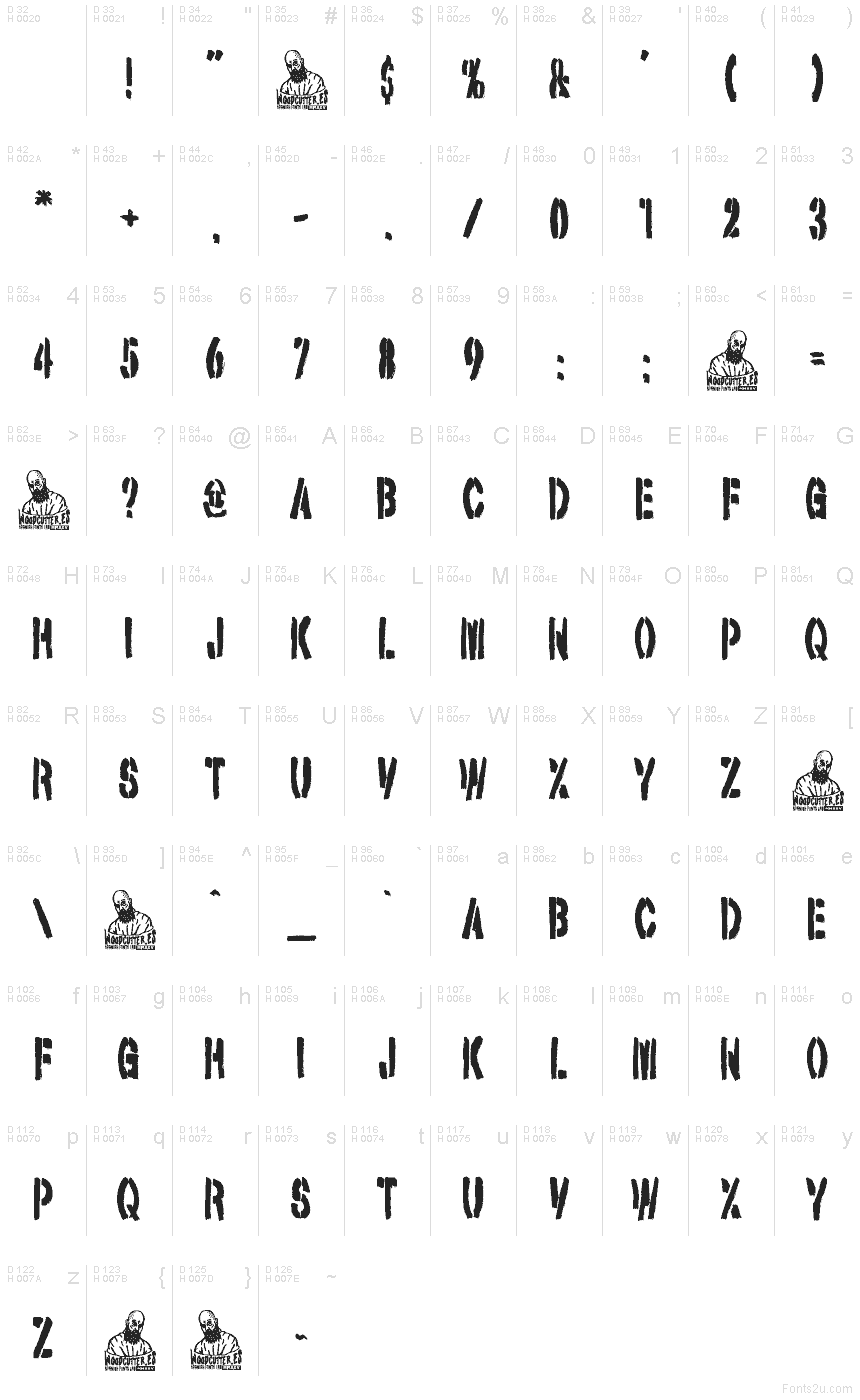
Night Operation
Night Operation font by Woodcutter is a free military display typeface. Its letters look spray-painted in the dark—ragged edges, scuffed fills, and a gritty, tactical presence that feels like stencils dragged across metal. The result is bold, urgent, and instantly legible at a glance, giving headlines that “night raid” tension without needing extra effects.
Using Night Operation, your titles snap on action posters, game covers, survival gear branding, airsoft or paintball team logos, thriller book jackets, event flyers, and YouTube thumbnails. The texture carries the attitude, so set it big and keep copy short; pair this free font with a clean condensed sans for supporting text, and try high-contrast color blocks or black-on-khaki for that field-ready punch.